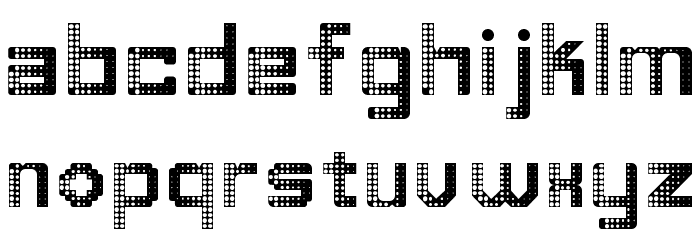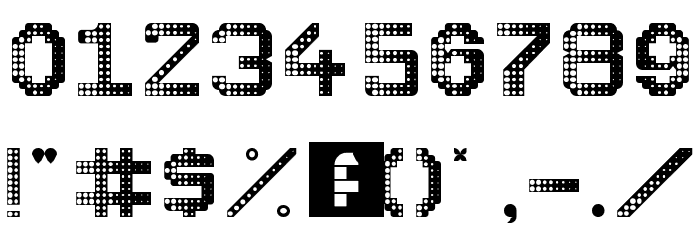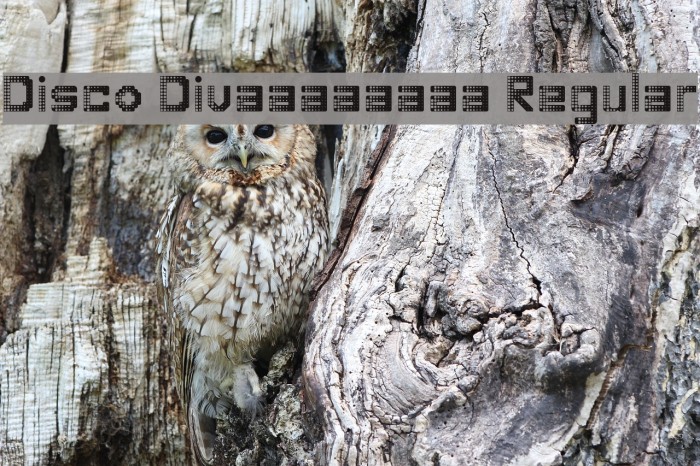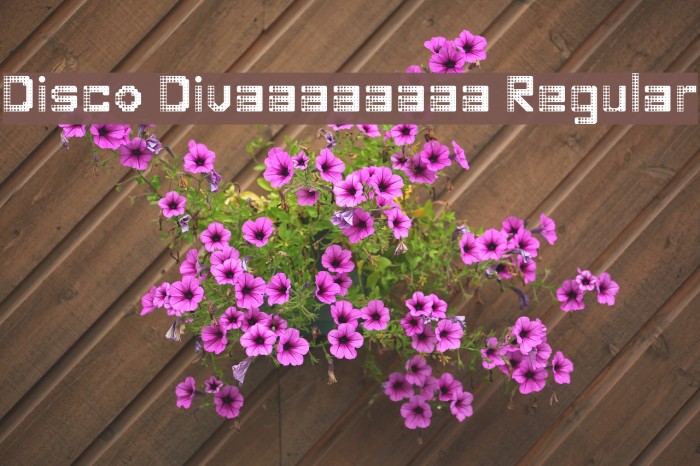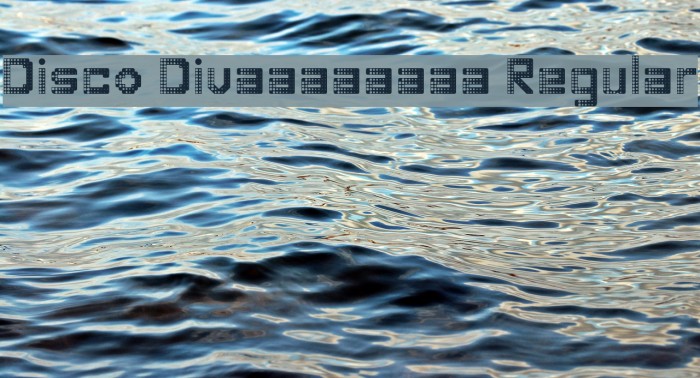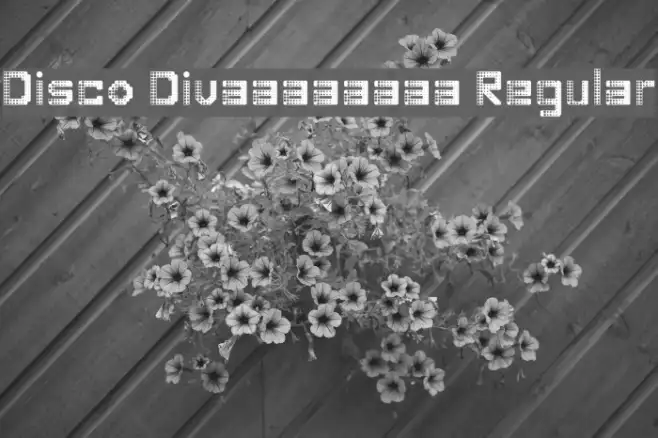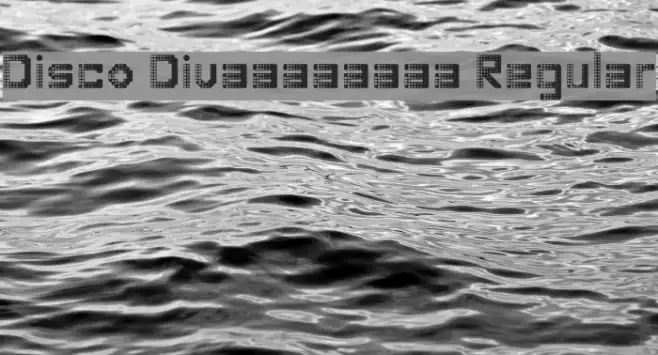
Disco Divaaaaaaaa Regular Font
This font features a bold, decorative style with a distinctive dotted pattern filling each character. The uppercase and lowercase letters maintain a consistent geometric structure, creating a cohesive and eye-catching appearance. The numerals and special characters follow the same design, ensuring uniformity across all glyphs. The font's unique design is reminiscent of retro digital displays or marquee lights, making it ideal for projects that require a touch of vintage flair. Its bold presence and high contrast make it suitable for headlines or display purposes where attention is key.
A bold, decorative font with a dotted pattern, perfect for vintage-themed projects.
- Proposed Projects: Ideal for retro-themed posters, event flyers, music album covers, or any project needing a standout display font.
- Overall Style: Vintage